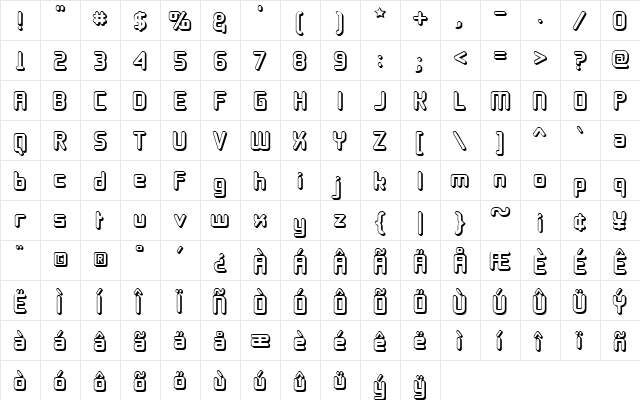
Complete 11S01 Black Tuesday Offset Regular glyph index. Displaying only characters natively supported by 11S01 Black Tuesday Offset Regular font.
11S01 Black Tuesday Offset is a composed and adaptable typeface that performs quietly and consistently across a wide range of design contexts.